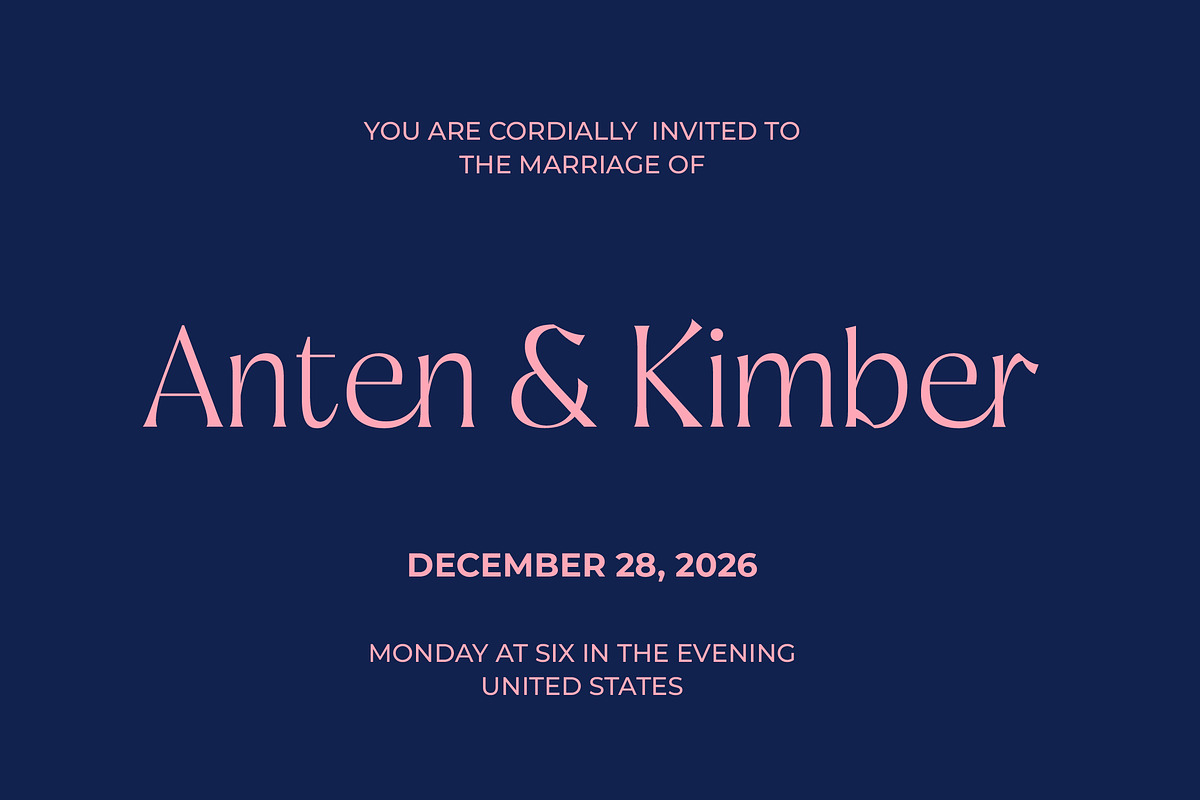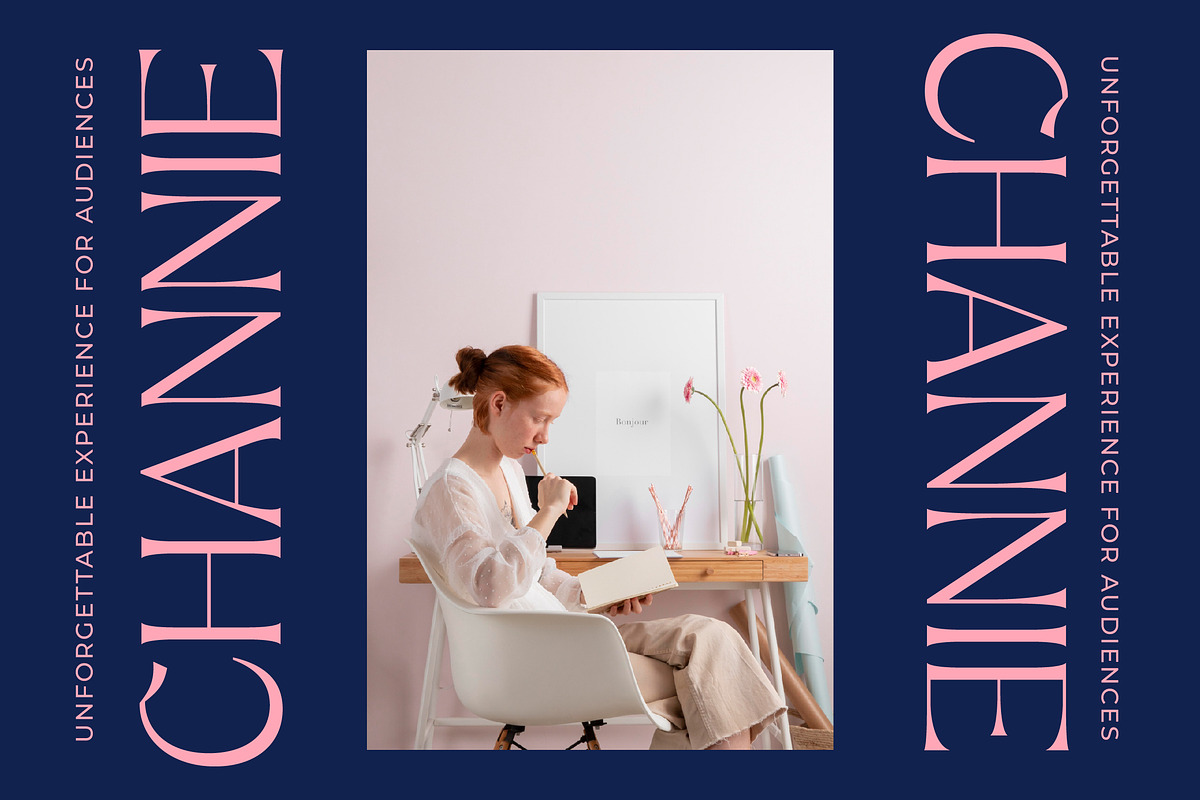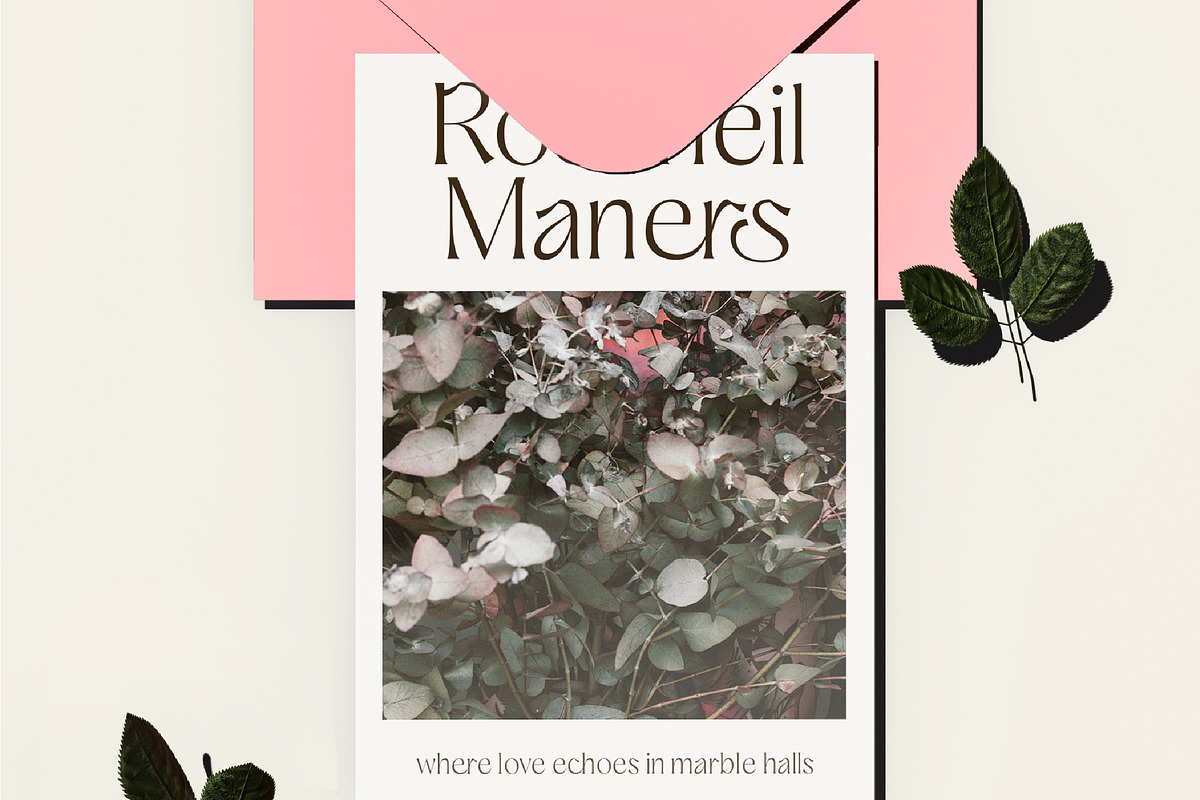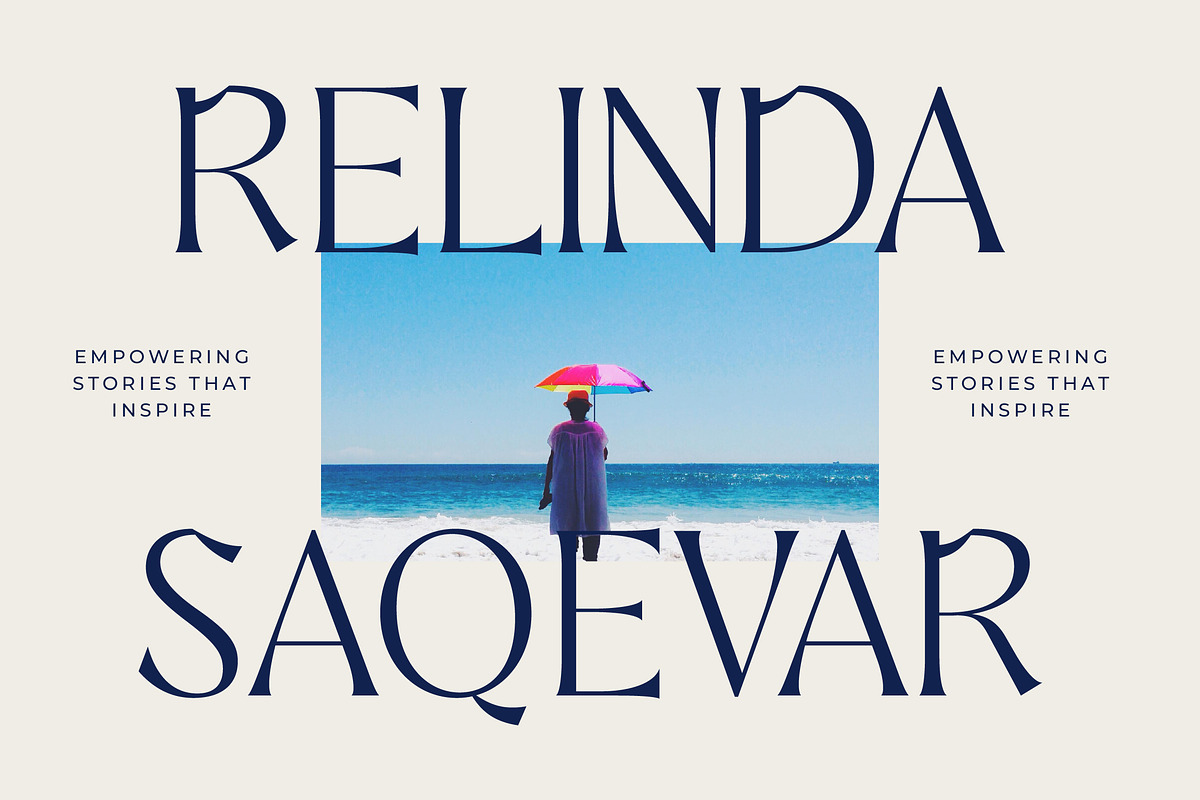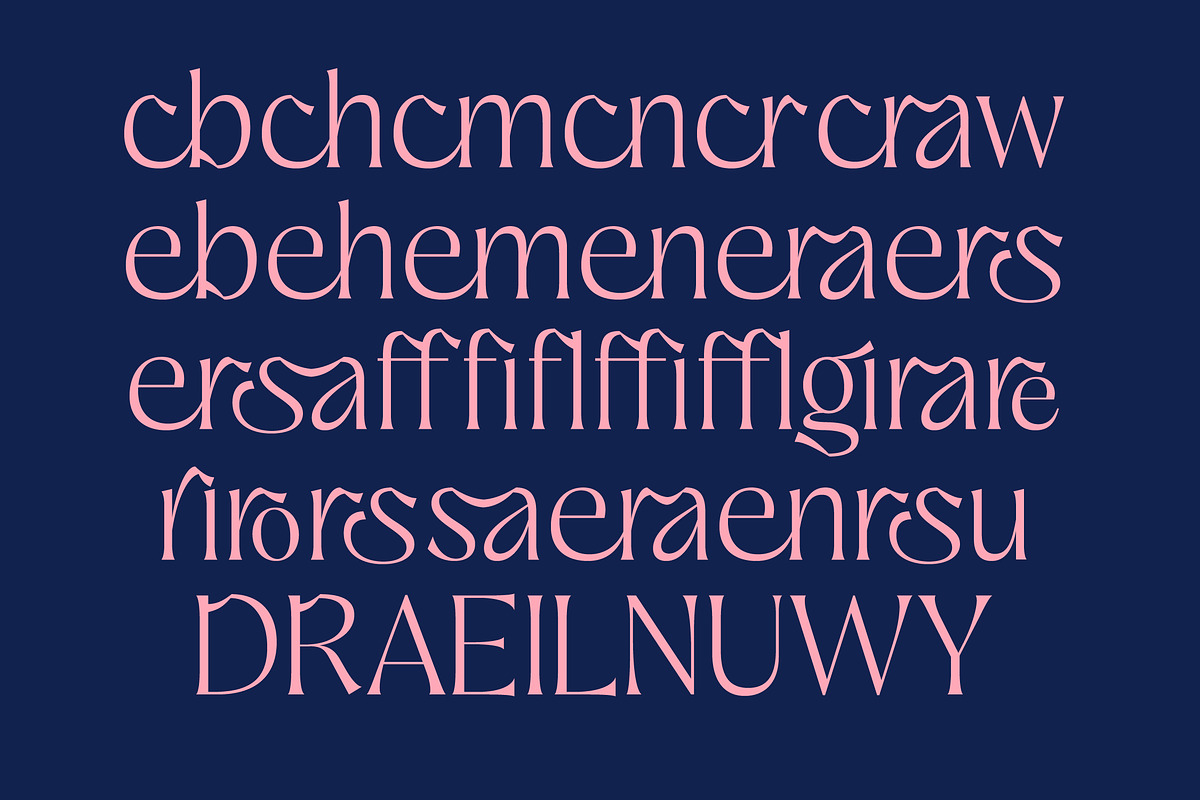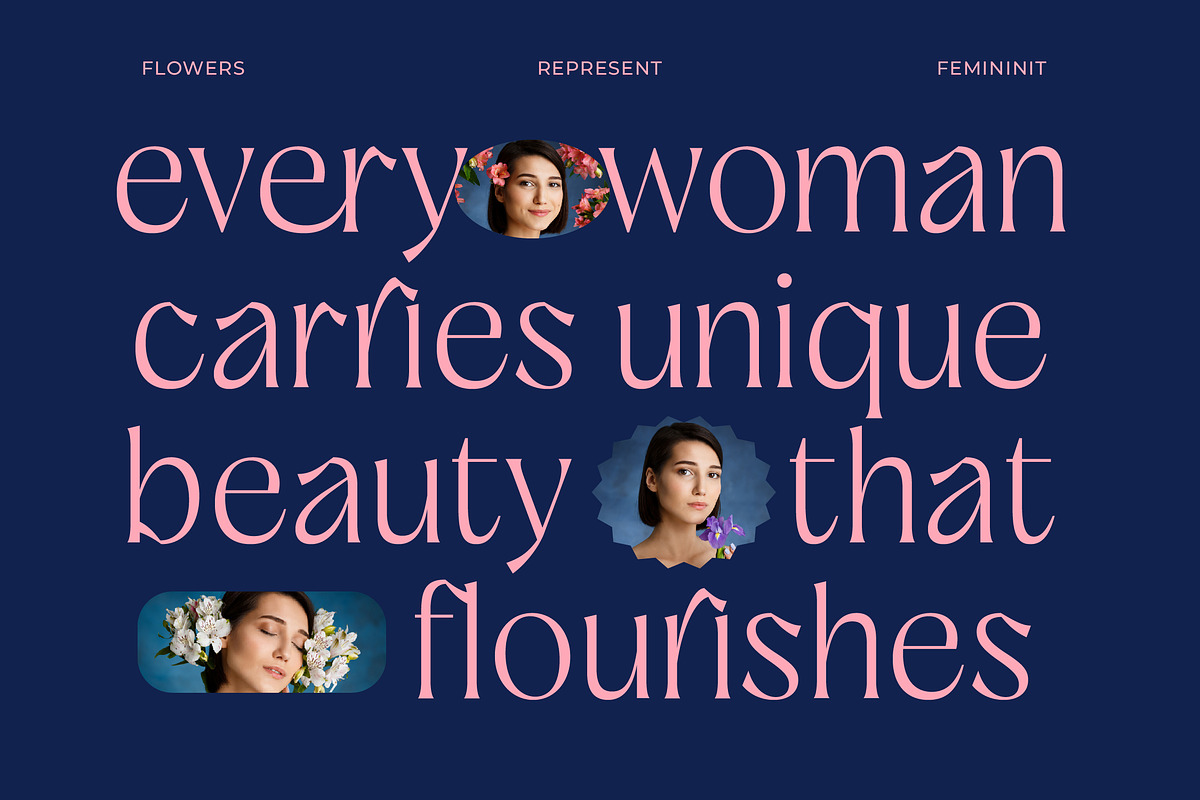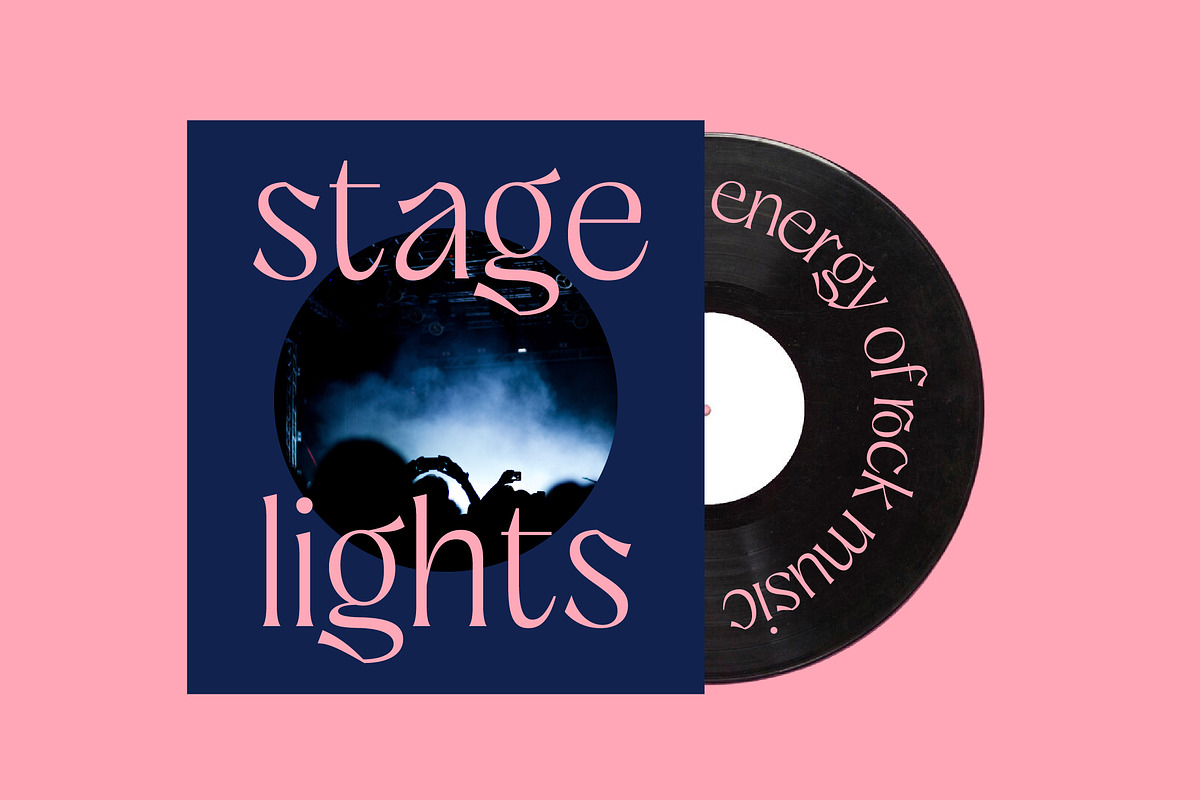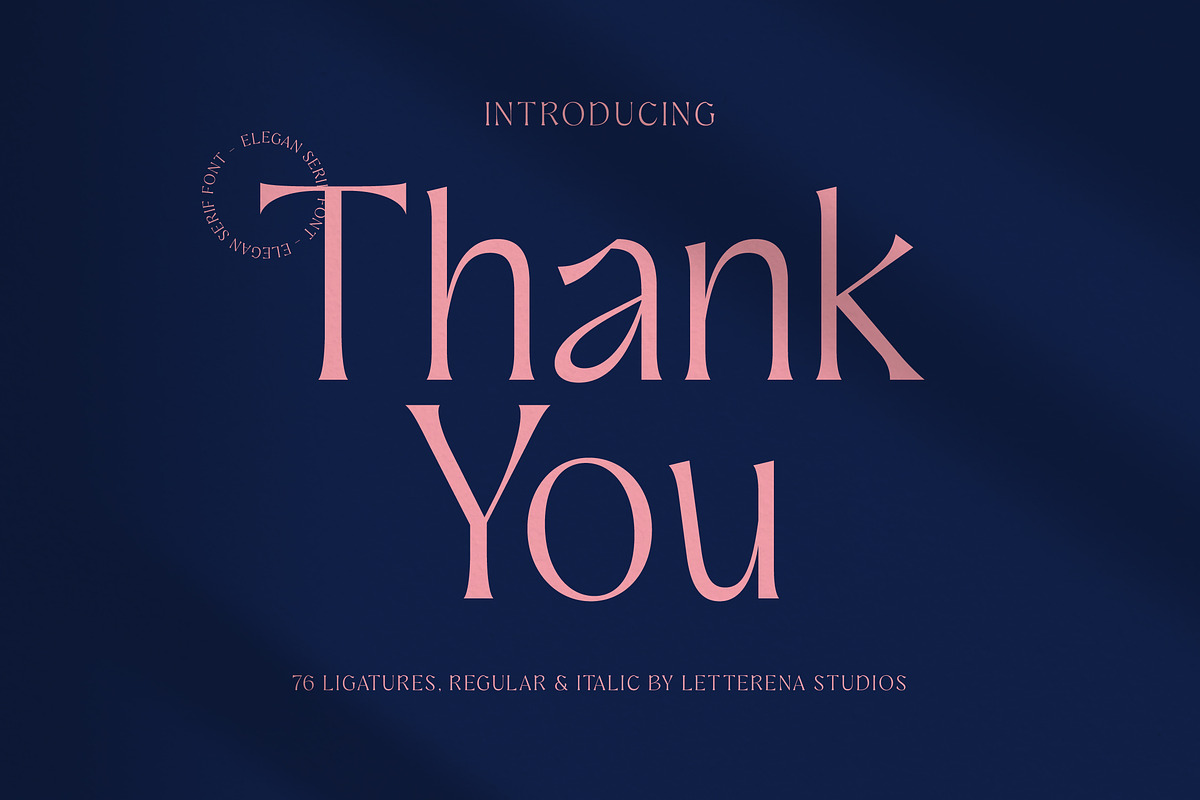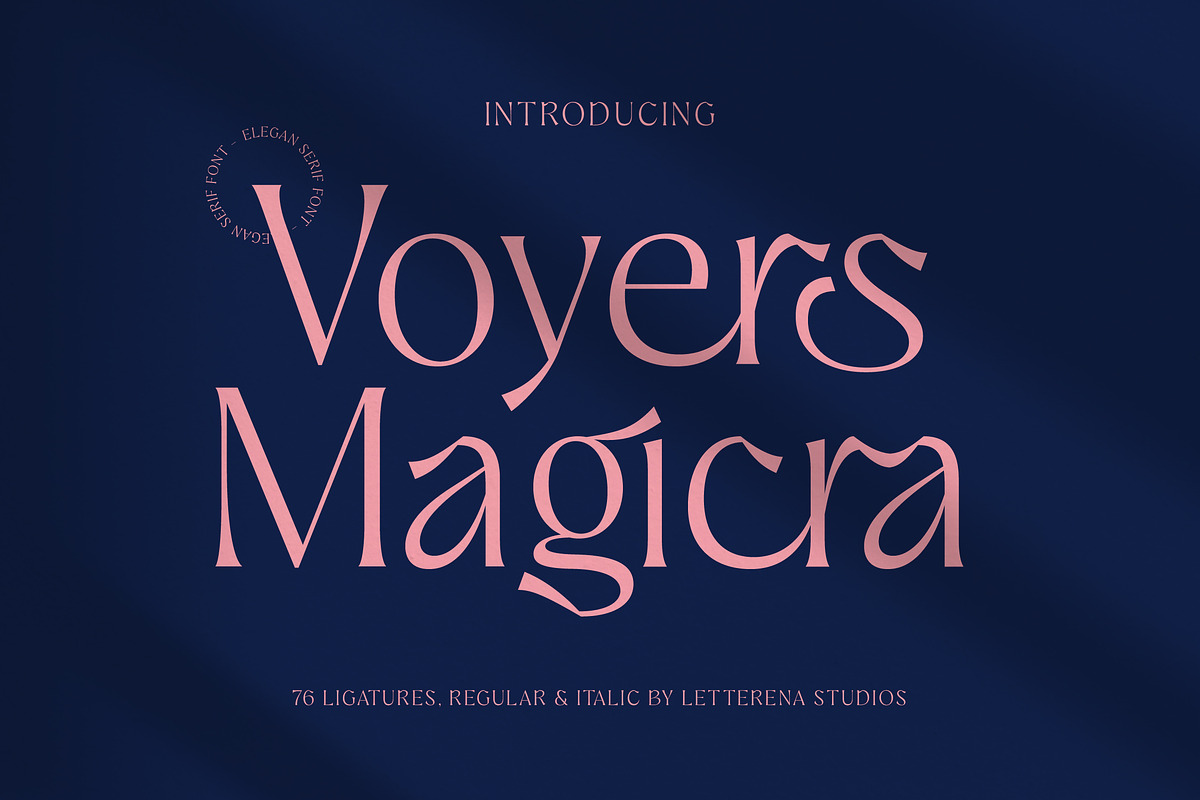
Voyers Magicra Elegant Serif
Elevate your creative vision with Voyers Magicra, a typeface that weaves enchantment into every stroke of its elegant letterforms. This font is more than just a collection of characters; it is a visual journey designed to bring a touch of magic to your most prestigious projects.
Inspired by the celestial dance of light and shadow, the design captures an ethereal atmosphere where classic elegance meets contemporary artistic flair. Its fluid lines and intentional curves evoke a sense of mystery and timeless beauty, perfect for storytelling through sophisticated graphic design.
With its modern serif display and luxury typography, this high-contrast serif commands attention in any layout. It functions as a powerful editorial font that ensures a significant branding impact, seamlessly blending readability with high-fashion artistic expression.
Tapping into the prevailing modern serif trend, this typeface addresses the growing demand for editorial display fonts that offer more than standard letterforms. Its character-driven typography allows designers to create unique, bespoke layouts that resonate with today's aesthetic-conscious audience.
The versatility of this font makes it an ideal choice for high-stakes logo design and comprehensive corporate branding projects. From sophisticated editorial spreads and premium packaging to romantic wedding stationery and cutting-edge fashion lookbooks, it adapts perfectly to various luxury contexts.
This comprehensive package includes over 76 unique ligatures and creative alternates that allow for custom-tailored text effects. Furthermore, it boasts extensive multilingual support and a full suite of international characters and swashes, ensuring your message reaches a global audience with ease.